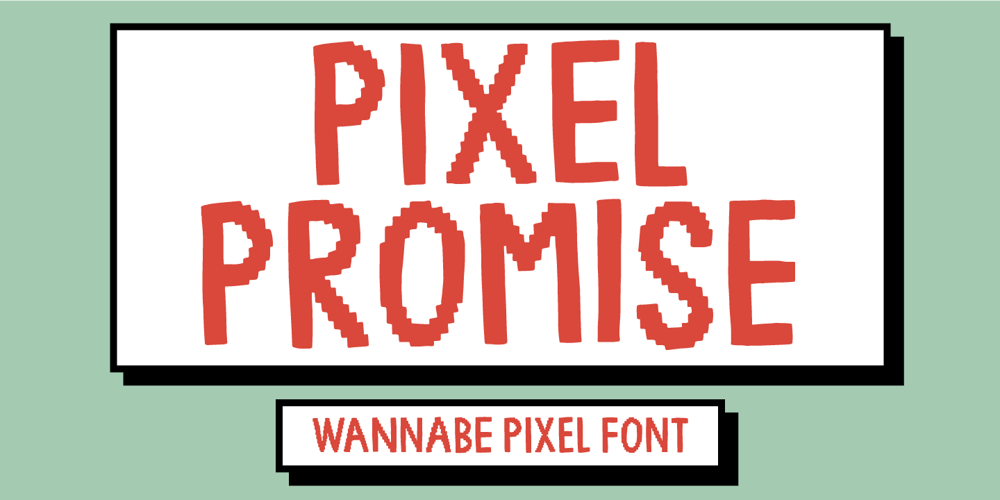
Pixel Promise
Pixel Promise font
Pixel Promise Font Family was designed by Jakob Fischer and published by PizzaDude.dk. Pixel Promise contains 2 styles and family package options. Pixel Promise is my wannabe pixel font. Yes, it is not a pixel font…but it is handmade and the “pixels” are deliberately off here and there.Nevertheless, when typing with Pixel Promise, you get that retro gaming feeling, and before you know it, you feel like you just want to insert another coin, press 1 or 2 players and complete that level! :)I have added 5 different versions of each letter and multilingual support